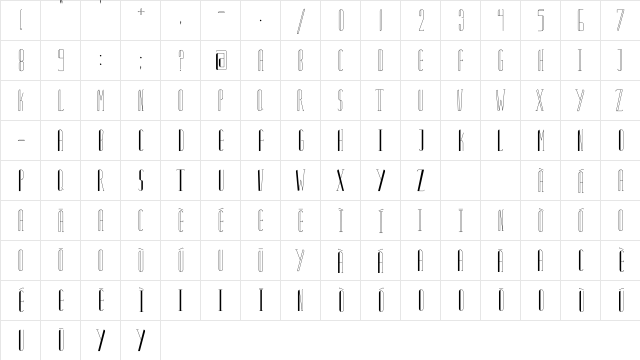
Primova Display
| Style | Display |
| Foundry | NiccolؠAgnoletti |
| Designer | blazardsky |
Design Context for Primova Typeface
Primova brings ornamental detail and strong personality to headlines and identities, where visual impact matters more than quiet functionality.
Font Pairing: Pair with a clean neutral sans-serif for body copy to let Primova's character lead without overwhelming the composition.
Pro Tip: Use Primova exclusively at display sizes — it was designed to be seen, not read at length. Let a neutral companion handle body copy.